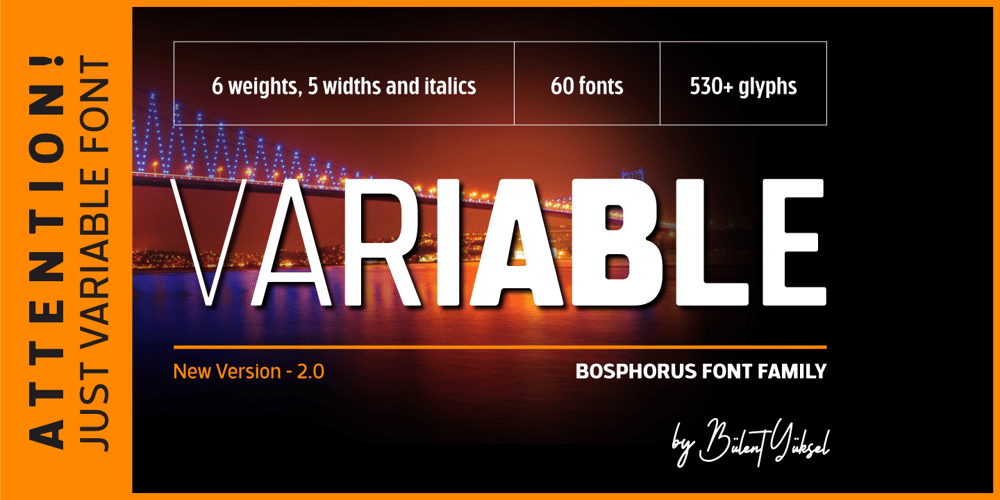
Bosphorus Variable Font Family was designed by Bülent Yüksel and published by Bülent Yüksel. Bosphorus Variable contains 1 styles and family package options. Ideally suited for advertising and packaging, editorial and publishing, logo, branding and creative industries, poster and billboards, small text, wayfinding and signage as well as web and screen design. Optimized for web, tablet and smartphone applications. Also “Bosphorus” is a perfect screen display font.Technical information:“Bosphorus” provides advanced typographical support for Latin-based languages. An extended character set, supporting Central, Western and Eastern European languages, rounds up the family.The designation “Bosphorus 50 Normal 53 Regular” forms the central point. The first figure of the number describes the stroke thickness: 51 Thin to 56 Black. 5 Width / 6 Weights and italics also “Bosphorus” total 60 types. The family contains a set of 530 characters.Case-Sensitive Forms, Classes and Features, Fractions, Superior, Inferior, Denominator, Numerator, Old Style Figures just one touch easy In all graphic programs.You can contact me at buyuksel@hotmail.com, pre-purchase and post-purchase with questions and for technical support.UPDATE:1- Some glyph unicode error correction / 04-06-2018- Euro Unicode- Idottacent Unicode- Oganec Unicode- Middot Unicode2- New Version 2.0 / 25-06-20213- Variable / 18-02-2022You can enjoy using it.